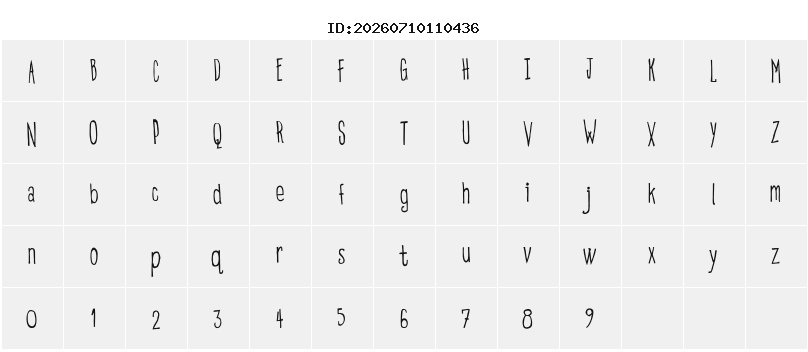
Eatpoo Preview
• Font Name: Eatpoo
• Full Font Name: EatpooSkinny
• PostScript Name: EatpooSkinny
About Eatpoo.ttf
Eatpoo.ttf is a modern, elegant sans-serif font designed for ultimate readability and visual harmony. Perfect for branding, headlines, web design, and print materials.